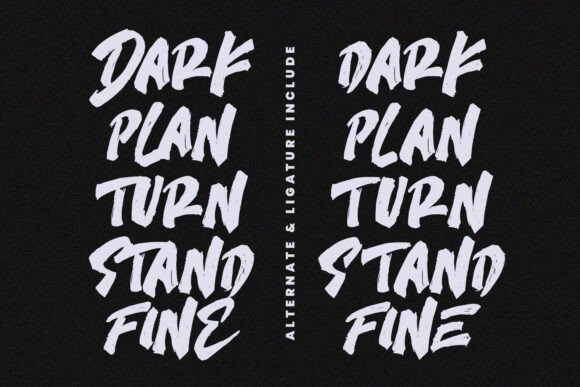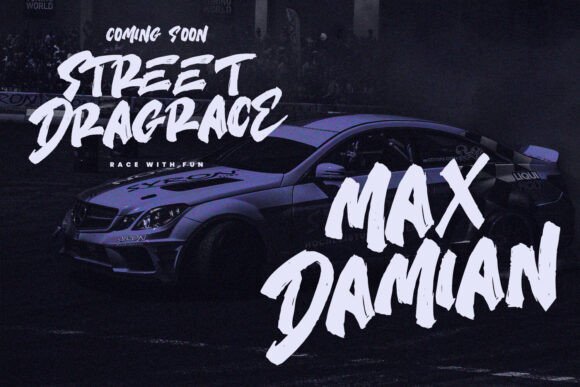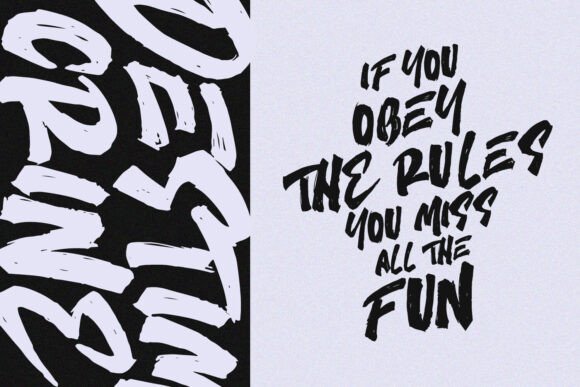
Introduction to Destim Crine Font
As designers, we’ve all been there – staring at a blank canvas, searching for the perfect font to bring our creative vision to life. For some, it’s the subtle nuances of a well-placed serif that sets the tone; for others, it’s the bold, eye-catching strokes of a script font that makes the difference. But what if you’re looking for something that exudes a sense of authenticity, a handwritten feel that’s both personal and professional?
Enter the Destim Crine Font, a beautifully crafted design resource that’s perfect for adding a touch of human touch to your creative project. With its high-quality, transparent background, this font is a dream to work with, allowing you to easily combine it with your design elements to create stunning visual effects.
Key Features of Destim Crine Font
- Destim Crine Font features a transparent background, allowing for easy customization and layering.
- Destim Crine Font is available in a single weight, making it easy to integrate into your design without worrying about font size and style inconsistencies.
- With a high-resolution design, Destim Crine Font is suitable for use in both print and digital media, including business cards, posters, and web graphics.
- Destim Crine Font is a unique design resource that can add a touch of sophistication and elegance to your creative project.
Honest Review: Destim Crine Font
As a designer, I’m always on the lookout for high-quality design resources to elevate my creative projects. Recently, I stumbled upon the Destim Crine Font, and I must say it’s been a game-changer for my recent designs.
- Unique and stylish design: The Destim Crine Font has a distinct aesthetic that sets it apart from other fonts.
- Transparent background: The font’s transparent background allows for seamless integration with any design element.
- Not suitable for body text: Due to its stylized design, the Destim Crine Font is best used for headings and titles.
Overall, I’m impressed with the Destim Crine Font’s unique design and high-quality format. While it may have some limitations, it’s definitely a valuable addition to any designer’s toolkit, especially for creative projects that require a bold and eye-catching font.
To get the most out of the Destim Crine Font, use it with a transparent background to create a clean and modern look. Experiment with different font sizes, colors, and combinations to add visual interest to your design.
The Destim Crine Font is perfect for creative projects such as logos, business cards, brochures, and social media graphics. Its high-quality design makes it a great choice for both personal and professional projects.